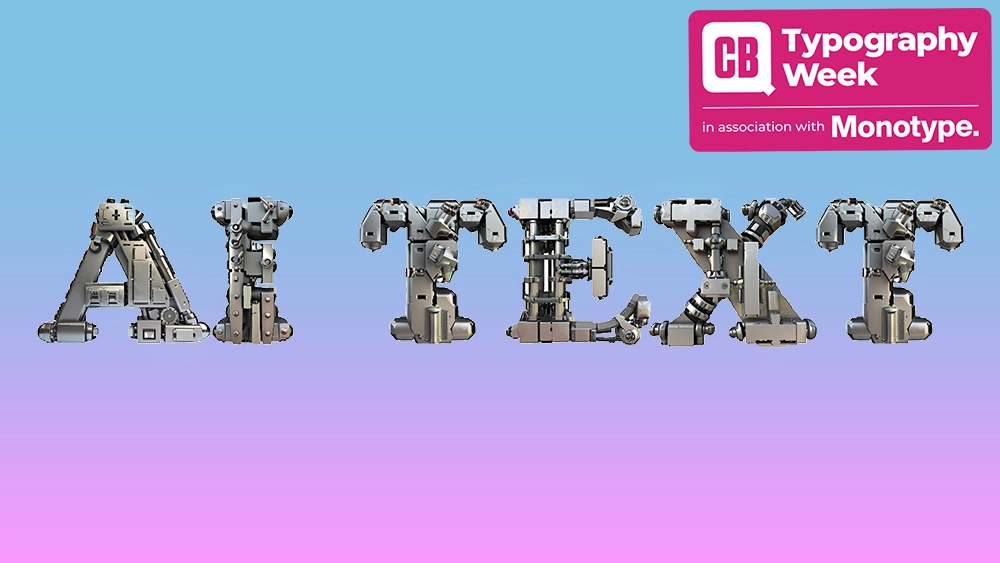
I tried Adobe's AI text generator, and it has real potential
Generative artificial intelligence is transforming creative work in myriad ways, with AI features creeping into software for everything from image manipulation to 3D modelling and video generation. But text continues to be a challenge.
AI image generators have got a lot better at rendering words, and some can now generate legible text in image on demand at least some of the time, although any text in backgrounds still tends to be garbled. So the Firefly-powered AI text generator, Text Effects in Adobe Express, is pretty impressive. It can output the words you want in the graphical style you ask for ready to be dropped into a design project. But how well does it work? I tested it out as part of our Typography Week.
What is Adobe Firefly Text Effects?
Text Effects is a tool in Adobe Express that allows users to render words or short phrases in stylised forms via text prompts. For example you could ask it to write the word 'Goo' in green slime or the word 'Gold' in... well, gold.
It will generate four options for each text prompt. If you get one that like, you can use it in a design within Adobe Express or download it as png file, ready to edit drag into Photoshop or any other image editing program to add to a poster, flyer or other design.
How does Adobe Firefly Text Effects work?
The tool works much like an AI image generator, since that's pretty much what it is. But there are parameters specific to text. You choose the font you want to use, and then you write the text that want to appear in the text field as if you were using the text tool in any design software. Then you describe the effect you want to create in the generate text effects field (or choose one of the sample effects). Hit 'generate' and your words will transform into something approximating the description you added.
You can change the tint and style for more colour and effect options, and you can add an outline or shadow and change the opacity and text arrangement. You can also animate the text generated, although the animations very basic and more like transitions than fully blown animations.
Adobe Firefly Text Effects verdict
It's impressive that Adobe's Firefly AI model can create text effects at all when you consider how badly many AI image generators handle text, let alone apply the requested styles with some amount of accuracy. But is the tool actually useful for anything? Sure. Just bear in mind that it isn't an AI font generator. You can't use it to create working typefaces to use in other programs. All it does it generate an image, that happens to be in the shape of letters.
But it does have real use cases within the remit of Adobe Express. This app and browser-based program is aimed at small businesses and creators who want to create their own social media content, perhaps without having any design skills or training, or the experience of using professional design software. And Text Effects is a viable tool for that market.
If you're looking to generate an eye-catching thumbnail for YouTube or a visual for an engaging social media post, using Adobe Text Effects can be an option for something that looks different and stands out. The uses are limited though. Generations often look unpolished, the resolution isn't high enough for printed materials and there's no consistency in the output.
Like with AI image generators, using even the exact same prompt will generate different results each time, so there's no way to create a consistent style across a range of assets unless you write out the texts all at the same time. Given that achieving good results can take quite some time, most people could just be better off choosing a good typeface.
I found that the tools works best with Adobe's suggested effects, some of these can look quite well-executed. Using text prompts was a lot more hit and miss. Text often had the strange artifacts and hallucinations that we've come to expect in AI-generated visuals. Sometimes random words will appear within the letters themselves, and sometimes the patterns just look a mess.
It seems to respond to only very simple prompts too, which doesn't allow for designs to be fine-tuned with any kind of precision. I tried to generate a text with the colour and texture of a hairy bee but couldn't get it not to include images of actual bees in the generation.
There is another potential use in ideation, though. It's a fun tool to use for testing out ideas, which you might want to work up yourself using graphic design software. Typographers might even be able to use it to try out ideas for typefaces (see our article about why typographers don't need to worry about AI.